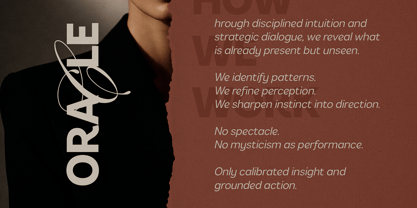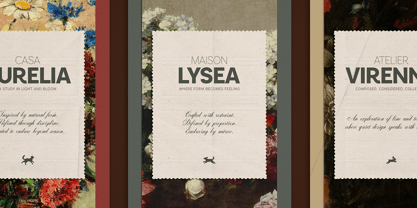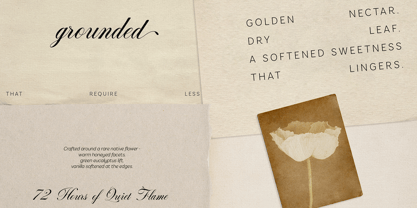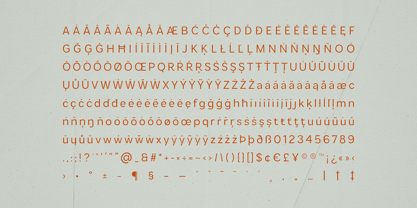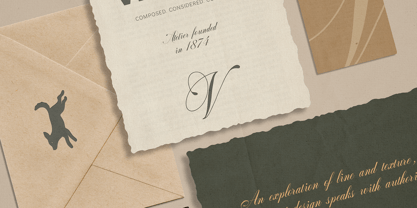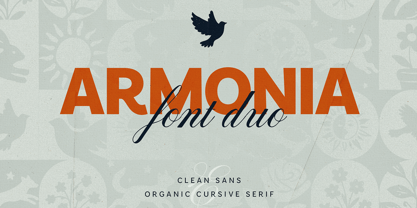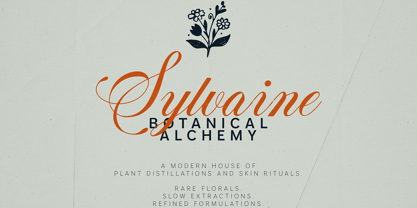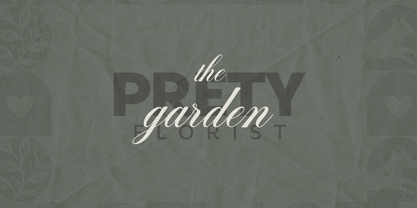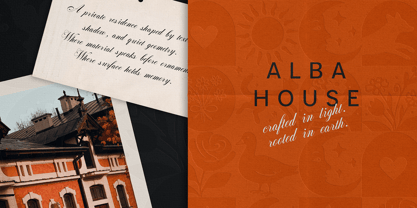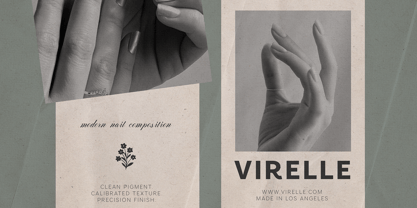
Armonia
The Armonia Font Family was designed by Vladimir Fedotov, Plamen Petrov and published by VP Creative Shop. Armonia contains 23 styles and family package options. More about this family
Armonia Font Duo Clean Sans + Organic Cursive Serif Collection Armonia is a refined, editorial-driven type system designed for brands that live between structure and emotion. This is not just a typeface. It’s a complete visual language. A powerful geometric sans serif with 9 weights + matching italics, paired with 3 hand-drawn cursive serif styles, decorative symbols, and pattern elements - all crafted to create timeless, high-end branding. Perfect for fashion labels, boutique hotels, editorial layouts, packaging design, candle brands, interior studios, beauty products, wedding creatives, and luxury identities.